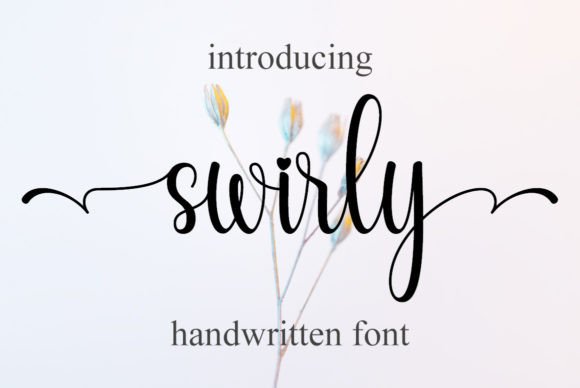
Introducing Swirly Font, the epitome of delicate elegance and flowing beauty! Created by the talented minds at Hardiboy Design, this captivating script font is here to add a touch of magic to your projects. Whether you're designing for a baby shower or any other occasion, Swirly Font is your ultimate go-to choice.
With its incredibly distinct and timeless style, Swirly Font is guaranteed to steal hearts and leave a lasting impression. Let your creativity soar as you explore the endless possibilities this font offers. From invitations to logos, posters to social media graphics, Swirly Font will effortlessly elevate your designs to new heights.
Unlock the full potential of Swirly Font with its PUA encoding, allowing you to effortlessly access all the glyphs and swashes. Embrace the freedom to customize and create unique combinations that perfectly reflect your personal style and vision. Watch as each swirly curve and elegant flourish adds a touch of sophistication and charm to your design.
Whether you're a professional designer or a passionate DIY enthusiast, Swirly Font is designed to cater to your needs. Its versatility allows it to adapt seamlessly to any project, creating a harmonious blend of beauty and functionality. Let this font be your creative companion, turning your ideas into remarkable designs that leave everyone in awe.
Don't settle for ordinary when you can embrace the extraordinary. Swirly Font is your ticket to standing out from the crowd and making a statement. Its captivating charm will draw attention and evoke emotions, ensuring your designs leave a lasting impact on anyone who lays eyes on them.
Experience the magic of Swirly Font today and let it transform your projects into works of art. Fall in love with its delicate strokes, elegant curves, and timeless appeal. Get ready to immerse yourself in a world where creativity knows no bounds.